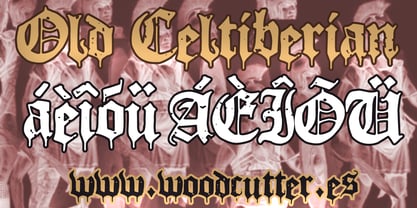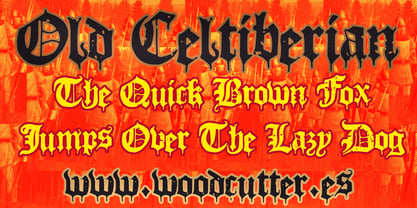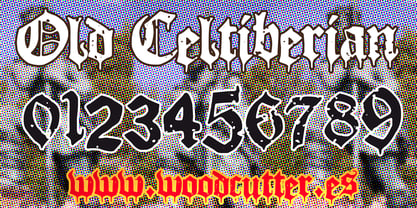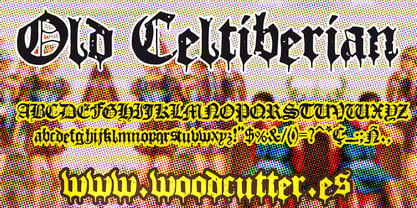
Old Celtiberian
by Woodcutter
The Old Celtiberian Font Family was designed by Jordi Manero and published by Woodcutter. Old Celtiberian contains 1 styles.
“Old Celtiberian” is a typeface family in uppercase and lowercase with accents, blending classic gothic style with a worn, irregular, and decayed aesthetic. Inspired by ancient manuscripts and legends of the old world, it features lowercase letters with sharp, downward-pointing ends that evoke swords, spears, or icicles—giving the type a fierce and mystical presence. Uppercase letters retain their gothic authority, but appear slightly misaligned and weathered, adding visual tension and movement.
Each letter looks like it has survived centuries of history, bearing time-worn marks, cracks, and natural erosion, as if carved in stone and exposed to wind, fire, and rain. This ancient and brutal feel makes “Old Celtiberian” perfect for projects tied to dark fantasy, medieval video games, epic posters, tattoos, or metal bands. Its irregular, ancestral, and expressive nature communicates strength, resilience, and legendary spirit with every word.